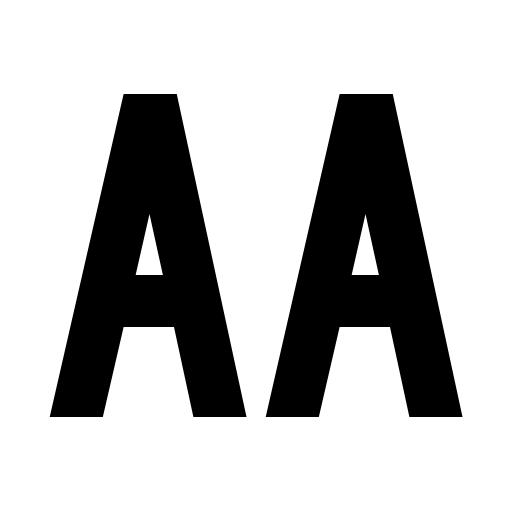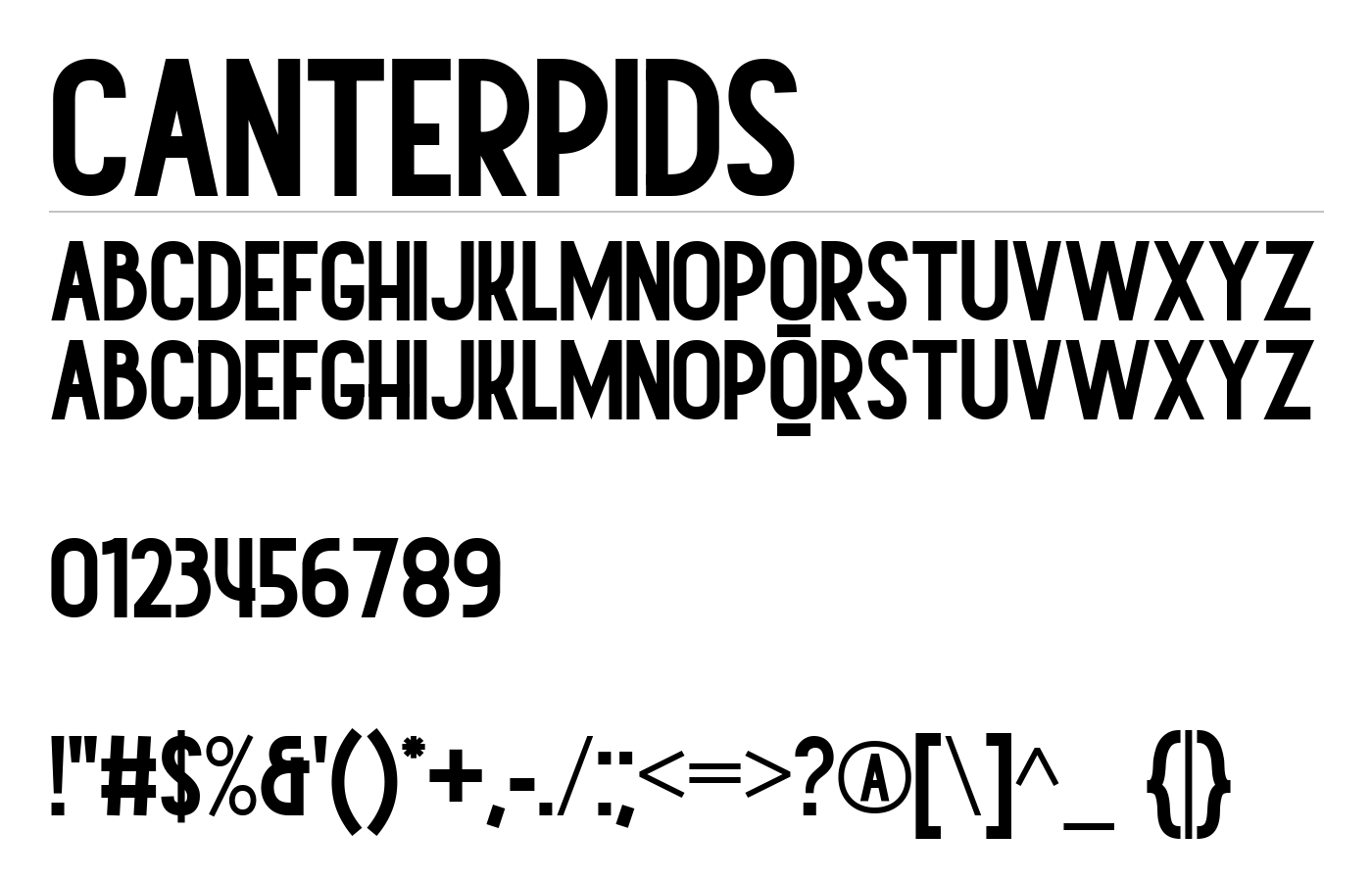
Canterpids is a bold, condensed sans serif font with a clean, modern look defined by its tall, narrow letterforms and uniform stroke weight. Its strong presence and compact spacing make it ideal for impactful headlines, branding, and editorial use where clarity and assertiveness are key. This font works especially well in designs that need a confident, contemporary style with a straightforward, no-nonsense personality.
Canterpids Font
About Canterpids Font